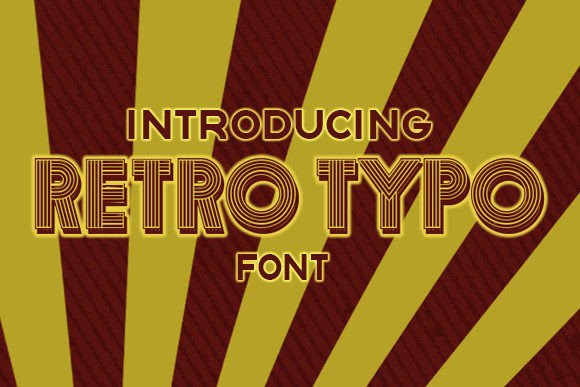
Retro Typo: A Vintage Display Font for Modern Web Design
Testing Retro Typo on a recent project felt like uncovering a hidden gem in my font library. As a web designer working on a boutique online store, I needed a display font that would stand out without overwhelming the design. Retro Typo, with its vintage feel and unique character, immediately caught my attention.
Retro Typo for Creative Portfolio Headlines
Retro Typo’s personality shines when used as a headline for creative portfolios. Its retro display style gives a nostalgic touch to digital profiles, making them feel more personal and artistic. When I applied it to a client's portfolio homepage, the font added a sense of authenticity that complemented their handcrafted design work.
I tested it across different sections—project titles, section headers, and call-to-action buttons. For the main hero title, I paired it with a clean sans serif body font to maintain readability while keeping the visual hierarchy clear. The contrast between the two fonts helped guide the viewer’s eye naturally through the page.
Retro Typo in Online Store Banners
For an online store selling vintage-inspired home goods, I wanted the typography to reflect the brand’s aesthetic. Retro Typo was a perfect fit for the banner headlines and promotional sections. It brought a warm, classic vibe that aligned with the product offerings.
One challenge was ensuring the font remained legible on mobile screens. I adjusted the font size and line spacing to prevent any issues with small displays. The result was a cohesive look that maintained professionalism while still feeling approachable and inviting.
Readability Tips for Retro Typo on Dark Backgrounds
When using Retro Typo on dark backgrounds, I found that adding a subtle text shadow improved readability. This technique prevented the letters from blending into the background, especially in areas with high contrast.
I also experimented with lighter versions of the font for subheadings and short phrases. This variation helped maintain visual interest without sacrificing clarity. Keeping the text concise made it easier for users to scan through the content quickly.
Retro Typo for Coaching Websites and Branding
A coaching website I worked on needed a strong brand identity. Retro Typo became the centerpiece for the site’s header and key messaging sections. Its vintage feel gave the brand a timeless appeal, which resonated well with the target audience.
For the landing page, I used Retro Typo for the main headline and then switched to a simple sans serif font for the supporting copy. This combination created a balanced layout that was both visually engaging and easy to read. The font’s unique character helped reinforce the brand’s message of authenticity and experience.
Font Pairing with Retro Typo for Editorial Layouts
When designing a blog redesign, I explored pairing Retro Typo with a modern serif font for the body text. This approach gave the editorial content a refined look while maintaining the retro flair from the display font. The contrast between the two styles helped highlight important sections and improve overall readability.
Retro Typo for Digital Ads and Campaign Pages
In a recent campaign for a new product launch, Retro Typo was used in the ad creatives and landing page banners. The vintage display font stood out against the bright visuals and helped capture attention effectively.
I focused on using short, punchy phrases with Retro Typo to maximize impact. The font’s unique style made the ads feel more memorable and aligned with the brand’s creative direction. Testing different variations of the font helped determine the best use cases for each element of the campaign.
Choosing the Right Weight and Style for Retro Typo
Exploring the different weights and styles of Retro Typo was essential for finding the right balance in the design. Lighter weights worked well for decorative accents, while bolder versions were ideal for headlines and prominent calls to action.
Understanding the included styles and alternates allowed me to create more dynamic layouts. Whether it was for a logo text or a promotional graphic, having multiple options helped maintain consistency across all brand assets.
Retro Typo for Course Sales Pages and Educational Content
For an online course platform, I integrated Retro Typo into the sales page and module headers. The vintage feel of the font gave the educational content a sense of nostalgia and tradition, which appealed to the target audience.
Using Retro Typo in this context required careful consideration of how it would interact with other elements on the page. By focusing on usability and accessibility, I was able to create a polished online brand experience that felt both professional and engaging.